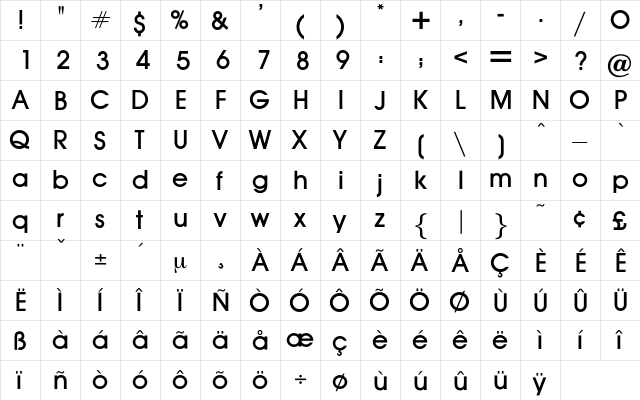
AuxinMedium Regular
Design Context for AuxinMedium Typeface
AuxinMedium offers clean, dependable letterforms without strong stylistic allegiance, making it a practical choice for designers who need flexibility.
Pro Tip: Use AuxinMedium in both headline and body roles to test its range before committing to a single application.